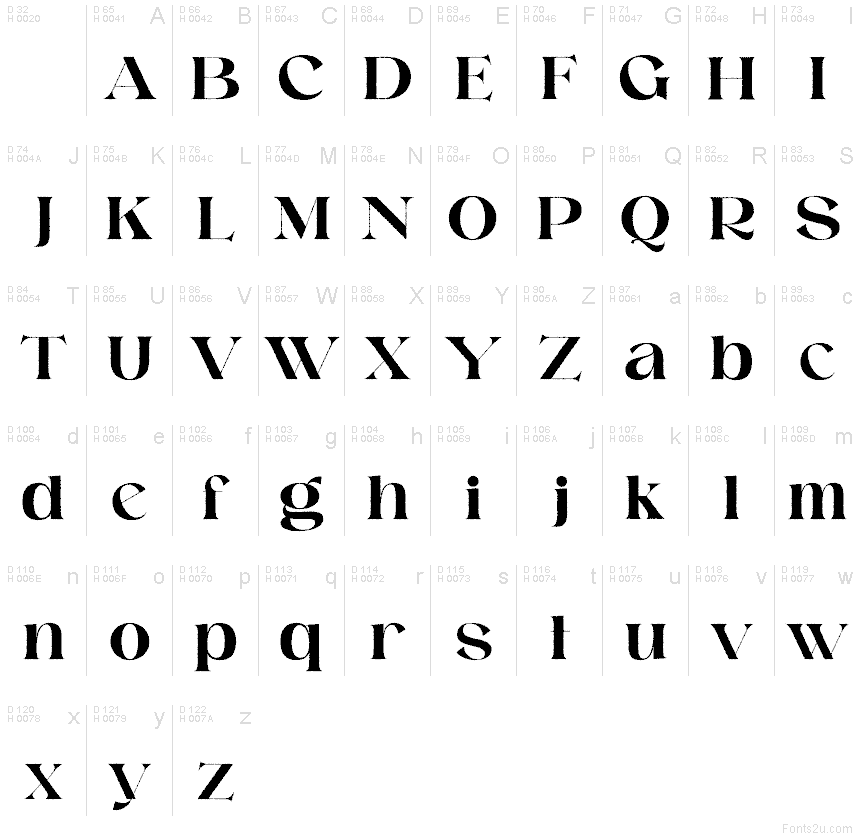
Raginy Rough Regular Demo
Raginy Rough font is a free serif font designed by Craft Supply Co. with bold weight and expanded width. The expressive typeface has a sophisticated appearance, holds a dramatic modern flair along with elegant artistic touches. It features high contrasts between the wide vertical stems and thin serifs and horizontal strokes.
Visual projects such as branding, advertising headlines, magazines, posters, show covers, films titles, or logotypes can all gain from this valuable tool. Additionally book cover designs, packaging design labels, invitations and greeting cards such as wedding invites will also be enriched if Raginy is used in them.